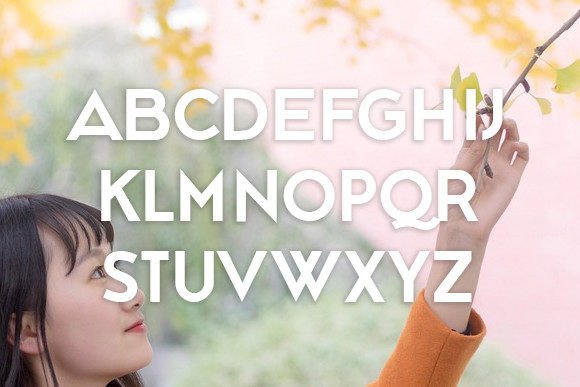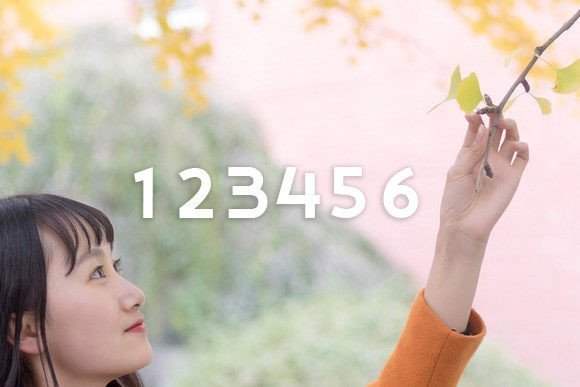
Ginkgo Font: The Ultimate Sans Serif Typeface for Your Design Needs
Are you a designer or crafter looking for the perfect font to elevate your creative projects? Look no further than the Ginkgo Font, an awesome sans serif typeface that is sure to fit any of your designs. In this article, we’ll dive into the world of Ginkgo Font and explore its features, benefits, and uses.
What is Ginkgo Font?
Ginkgo Font is a modern sans serif typeface that is designed to be clean, elegant, and highly legible. Its simple yet stylish design makes it perfect for a wide range of applications, from posters and shirts to banners and digital media. With its sleek lines and minimalist aesthetic, Ginkgo Font is sure to add a touch of sophistication to any design.
Key Features of Ginkgo Font
So, what makes Ginkgo Font so special? Here are some of its key features:
- Clean and Elegant Design: Ginkgo Font boasts a clean and elegant design that is perfect for creating visually appealing designs.
- Highly Legible: The font is designed to be highly legible, making it easy to read even at small sizes.
- Versatile: Ginkgo Font is versatile and can be used for a wide range of applications, from print to digital media.
Benefits of Using Ginkgo Font
So, why should you use Ginkgo Font for your design projects? Here are some of the benefits:
- Enhance Your Designs: Ginkgo Font can add a touch of sophistication and elegance to your designs, making them stand out from the crowd.
- Improve Legibility: The font’s high legibility ensures that your text is easy to read, even at small sizes.
- Save Time: With Ginkgo Font, you can create professional-looking designs in no time, saving you time and effort.
- Increase Creativity: The font’s versatility and ease of use can help spark your creativity and inspire new design ideas.
Uses of Ginkgo Font
So, what can you use Ginkgo Font for? The possibilities are endless!
- Posters: Use Ginkgo Font to create eye-catching posters that grab attention.
- Shirts: Add a touch of style to your shirt designs with Ginkgo Font.
- Banners: Use Ginkgo Font to create professional-looking banners that make a statement.
- Digital Media: The font is also perfect for digital media, including social media graphics, website headers, and more.
In conclusion, Ginkgo Font is an awesome sans serif typeface that is perfect for any design project. Its clean and elegant design, high legibility, and versatility make it a must-have for designers and crafters. With its ease of use and wide range of applications, Ginkgo Font is sure to become a staple in your design toolkit. So why wait? Download Ginkgo Font today and take your designs to the next level!